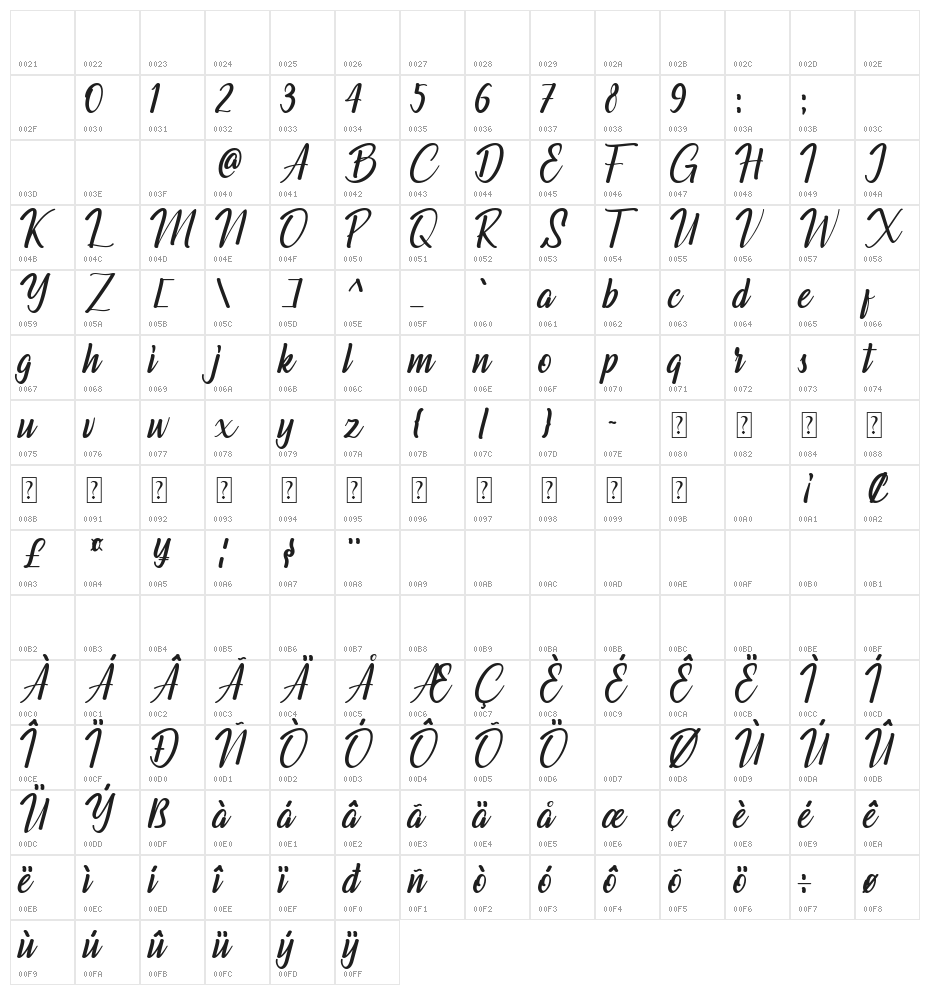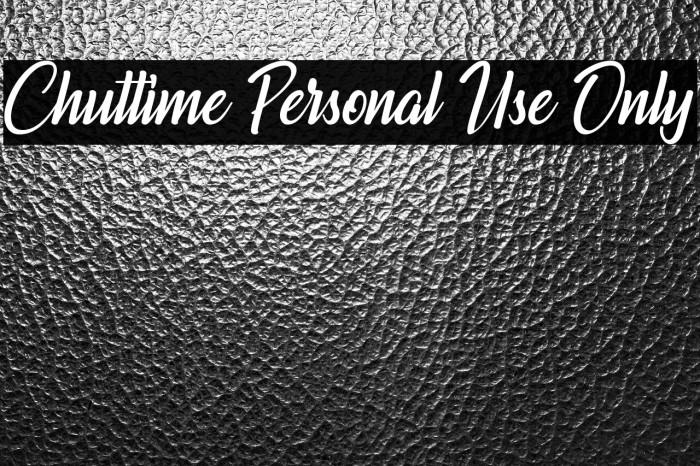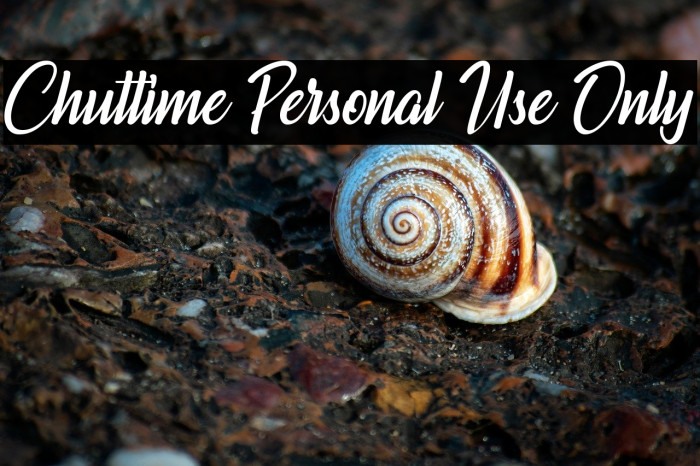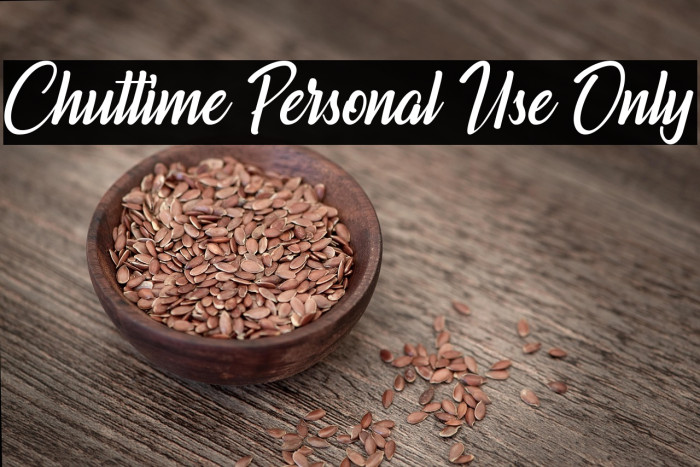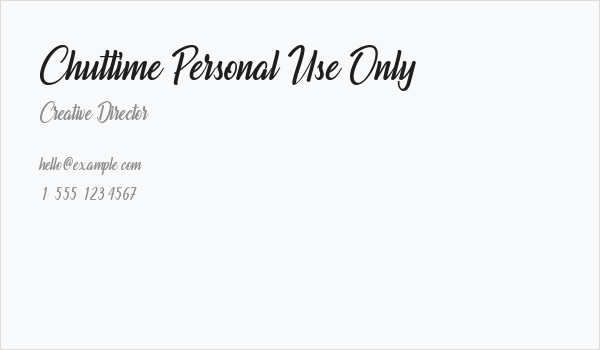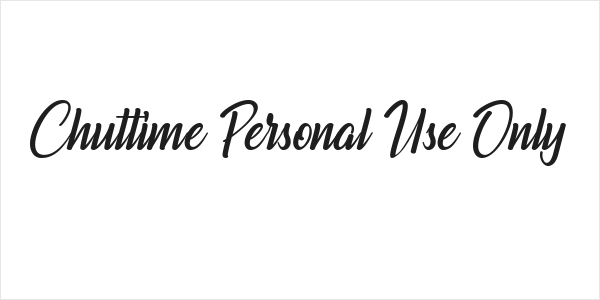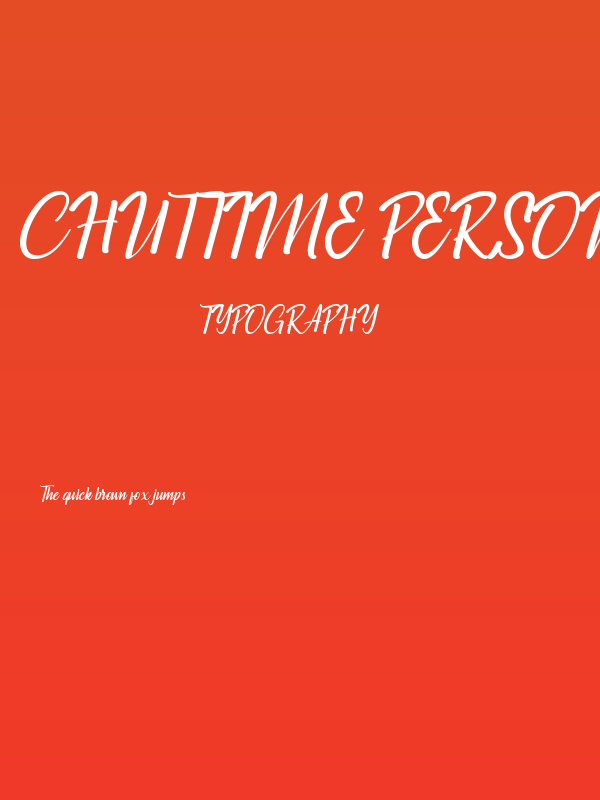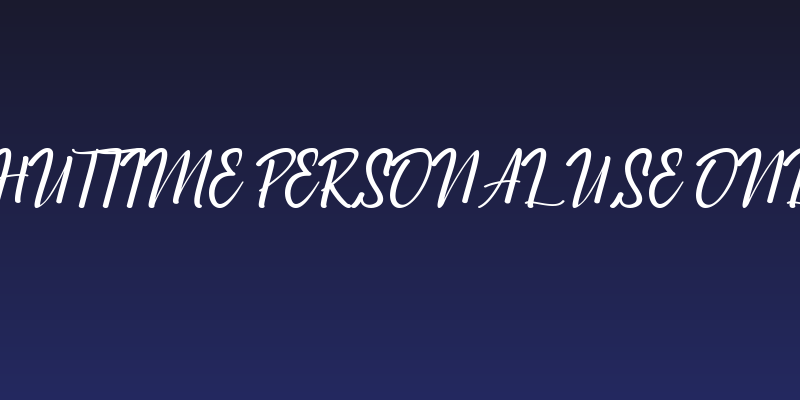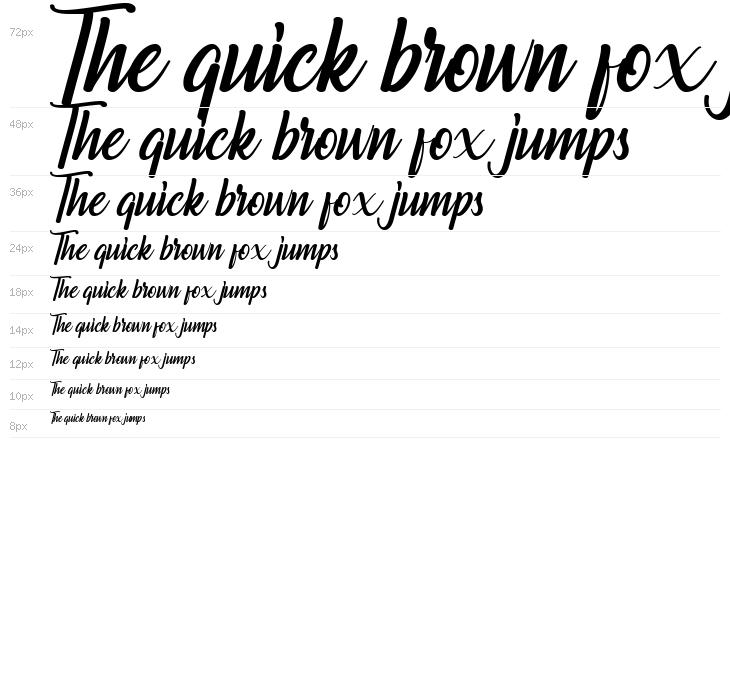
Chuttime Personal Use Only Font
Chuttime Personal Use Only Description
This font features a dynamic and flowing script style, characterized by its elegant and fluid letterforms. The uppercase letters exhibit a graceful, cursive appearance with smooth, sweeping curves and a slight slant, giving them a sense of movement and sophistication. The lowercase letters maintain this fluidity, with some characters connecting seamlessly, enhancing the script's cohesive look. The numerals are designed to match the overall style, with a similar slant and smooth curves. The special characters are integrated well, maintaining the font's elegant and stylish aesthetic. This font exudes a sense of elegance and creativity, making it suitable for projects that require a personal and artistic touch.